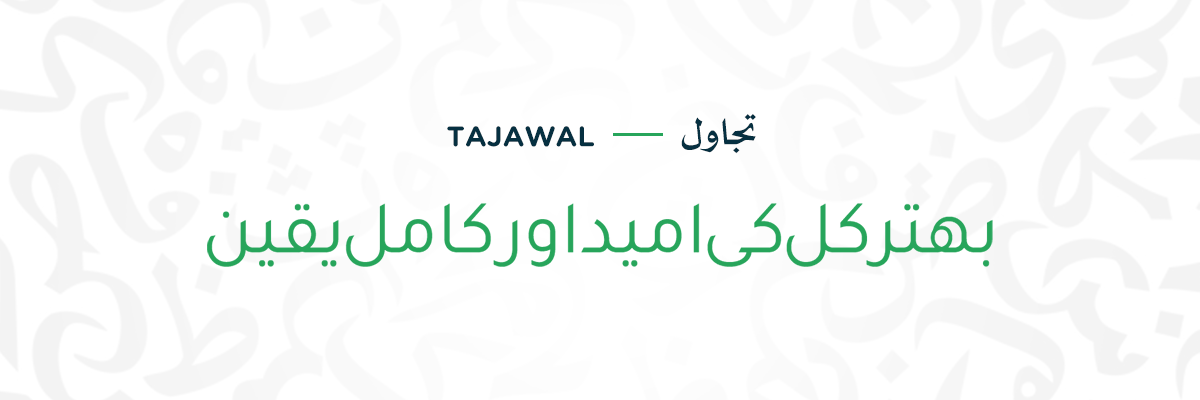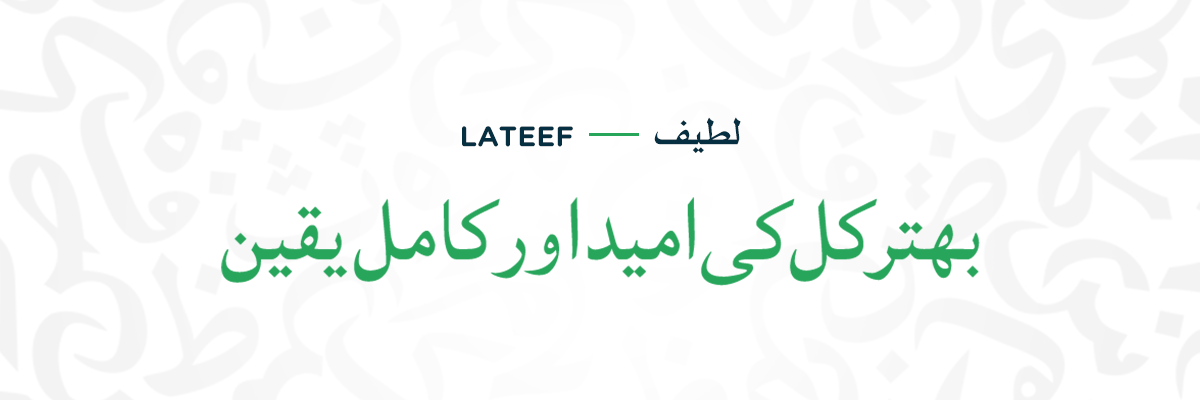
Urdu is the National language of Pakistan. Although English is used in most of our official documents but there are many institutes including some from Government sector that uses Urdu is their official language. Therefore, Urdu fonts play an important role in that. Seeing one font everywhere can be boring and reader may not find it much appealing. So, utilizing various fonts can help increase users' engagement and make the document look more appealing. Whether you are preparing your business presentations or other important documents, one of the major things to consider is choosing the professional Urdu fonts to improve their overall appearance.
A right font can convey your business’ values, personality, as well as voice. Also, Urdu Fonts can provide visual hints about the sequence a document needs to be read in as well as which sections are more significant than others. You can even use them to control how much time will be taken by someone to go through a whole document. If you want to select the appropriate fonts for your business identity, do not forget to consider your industry, target audience, as well as message. Below, we will discuss some of the best Urdu fonts that one can use in their corporate projects. Also, read more about how you can leverage Urdu fonts in e-Learning Platforms to increase users' engagement.
Every business wants to attracts a large number of people towards their businesses. For this, they need to prepare their presentations or documents in the best manner. It is recommended to use Urdu fonts that are professional and can add more clarity to your corporate tasks. Let’s have a look at some of the best Urdu fonts to use in business projects:
| Sr No. | Font Name | Designer | Appearance |
|---|---|---|---|
| 1 | Al Quds | ZakDesign | Slightly rounded inward terminals, wide edges, solid strokes, |
| 2 | Advertising | Majid Al-Otaibi | Geometric, wide letterforms, little curved edges, |
| 3 | Sarem M Azam | Sanaullah Mangnejo Sarem | Naskh inspired, subtly rounded corners, high readability |
| 4 | Nafees Tahreer Naskh | Mr. Jamil-UR-Rehman | Regular Urdu, pointy edges, even spacing |
| 5 | Sarem Sindhi Aesthetic | Sanaullah Mangnejo Sarem | Curved edges, flowing letterforms, bold appearance |
| 6 | Jameel Unicode | Syed Manzar Hasan Zaidi | Nastaliq inspired, varying thickness |
| 7 | DG Rawnq | Hossam El Deen Ahmed | Thuluth calligraphy influence, decorative, pointy angles |
| 8 | Tajawal | Boutros International | Thin, symmetrical letters |
| 9 | Lateef | Shah Abdul Lateef Bhitai | Qalam writing, mono-spaced, slanted starting points |
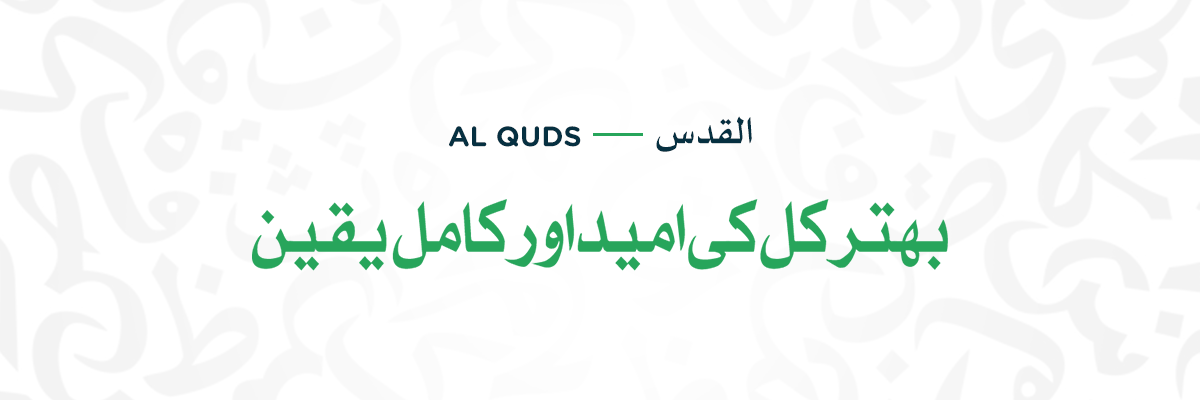
AL Quds was launched on 2nd Jan, 2021 and is a trademark of ZakDesign. It is a Qalam writing Bold Arabic font with varying thickness throughout its characters. Having 537 characters and 456 glyphs, it is a Naskh inspired font. The terminals are thin and slightly rounded inward while the edges are wide and slanted. Also, the solid strokes guarantee high legibility, making it best for writing pointers in your corporate projects.
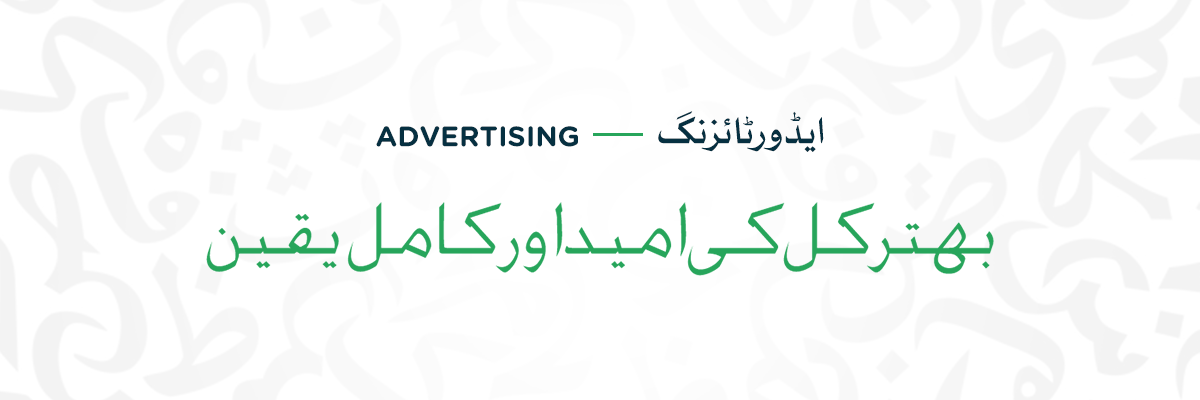
Advertising was designed by Majid Al-Otaibi, an Arabic font designer. Having a geometric appearance, it is a thin Qalam writing font. The font has wide letterforms with little curved edges. Inspired by Naskh script, it has sharp edges, adding an elegant touch to your corporate projects. You can use this font to write long body texts in your presentations and documents. Also, the thickness of the lines throughout the font is constant, giving a very even look to the font.
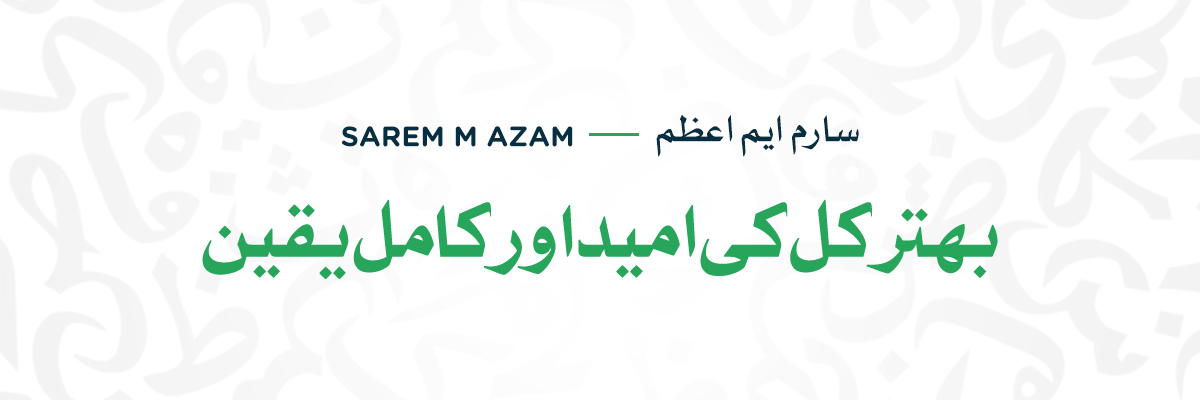
Sarem M Azam was designed by Sanaullah Mangnejo Sarem. It is a Sindhi and bold font inspired from Naskh calligraphy. With wide letterforms, the font features subtly rounded corners in its characters. The overall appearance of this font gives a very professional look and is perfect to write titles or headings of your business projects. Having an extensive character set as well as glyphs, it has strong strokes. Also, its high readability makes it the best for writing short texts in your business branding.
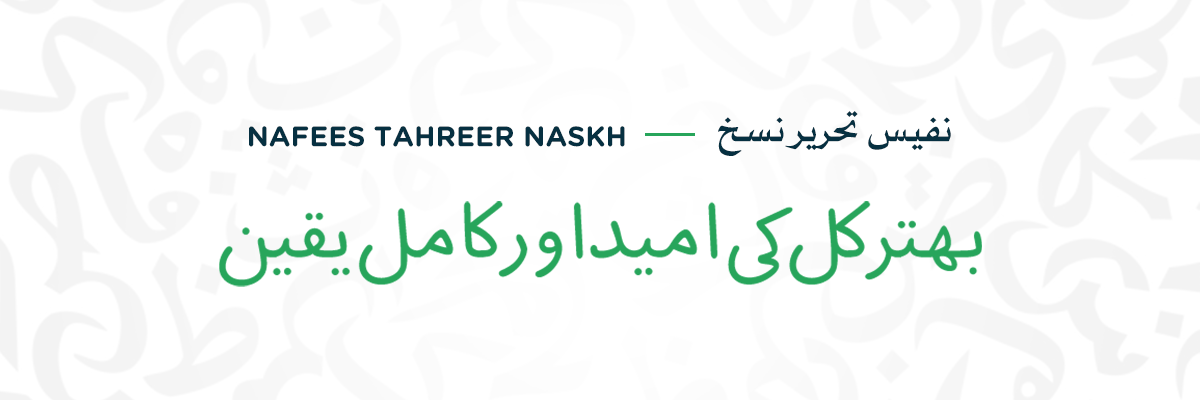
Nafees Tehreer Naskh was made by Mr. Jamil-UR-Rehman and launched by Center for Research in Urdu Language Processing (CRULP). It is a regular Urdu font with a very soft appearance. Inspired from the Naskh script, the font has wide letterforms with some modern touch. Having 195 characters as well as 468 glyphs, it features pointy edges and soft corners. Having an even spacing, it is a thin Qalam writing font. Because of its delicate strokes and constant thickness, it adds a touch of sophistication to your business projects.
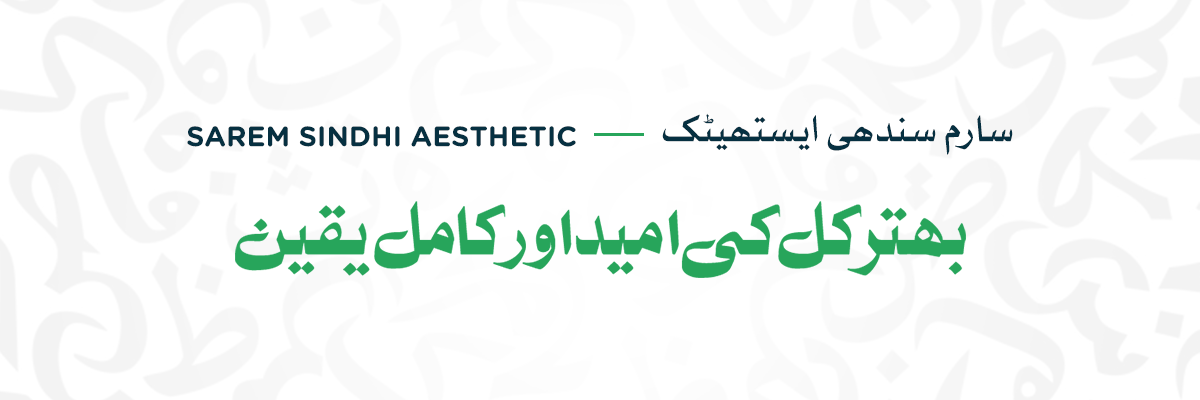
Another Sindhi font, Sarem Sindhi Aesthetic was designed by honored Sanaullah Mangnejo Sarem. It has curved edges and wide letterforms with flowing letterforms. Overall, the font gives a very professional and clear look to your projects. The font’s curves are graceful and fluid, suggesting a calligraphic influence. Although it may not be a good option to use for long texts due to its bold appearance but you can surely use this to write important highlighted sections in your business tasks. For more bold fonts you can explore 35 Bold Urdu Fonts to use in engaging headings, titles, and more.
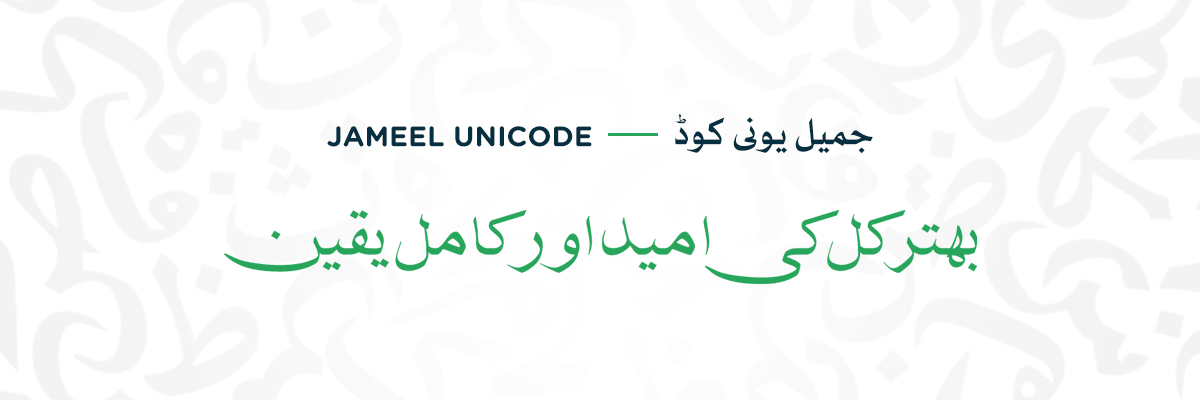
Jameel Unicode was launched by Axis Softmedia Pvt in 2016. Ltd. The designer of this font is Syed Manzar Hasan Zaidi. Having thin as well as wide letters, it features sharp edges. Also, it is a Qalam writing inspired font with modern impact and has varying thickness throughout the. Having 444 characters and 497 glyphs, it can support various languages like Latin, Persian, Urdu, etc. The high legibility of the font on screens makes it best to add in your presentations and documents.